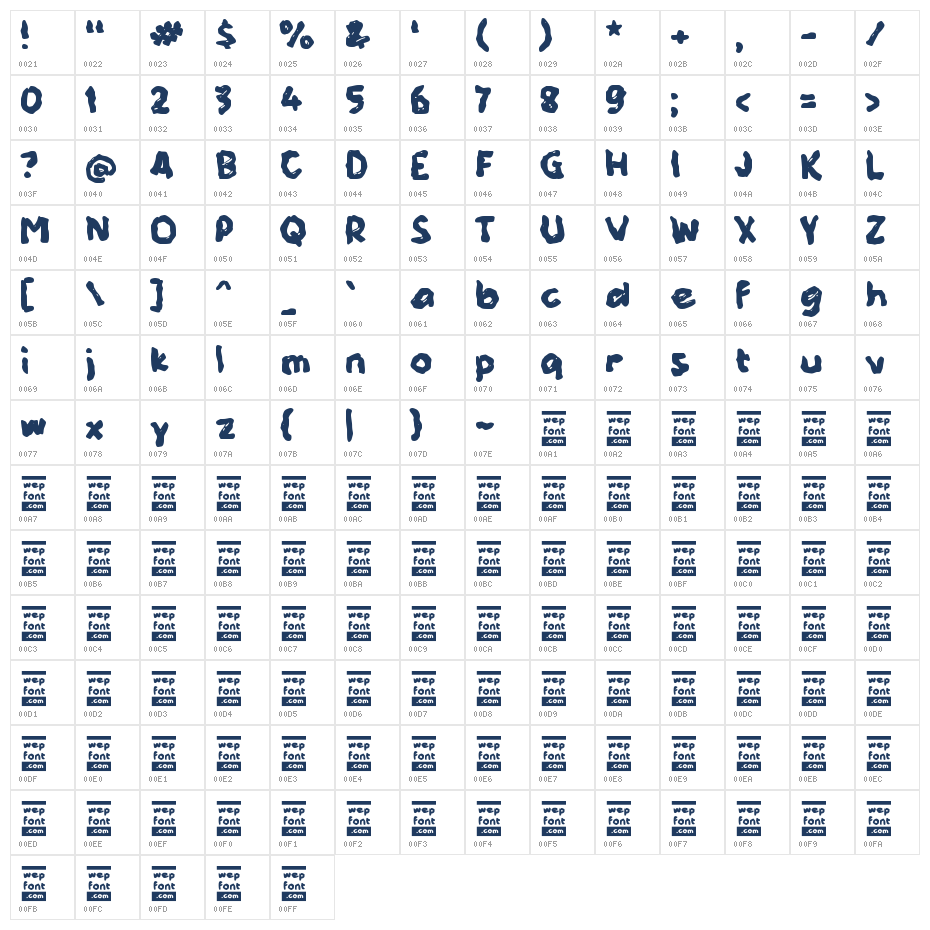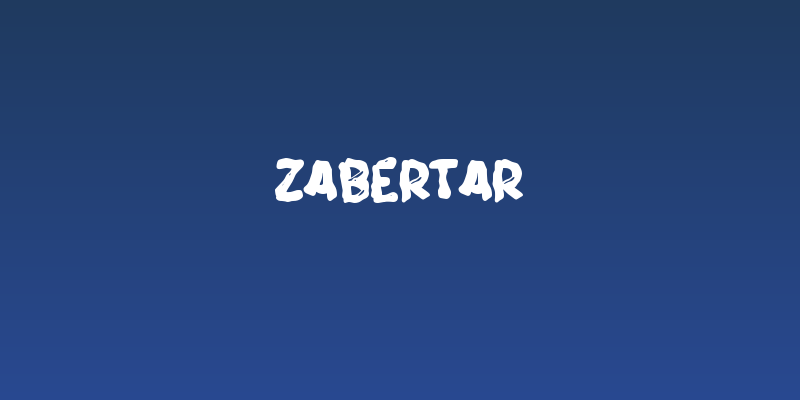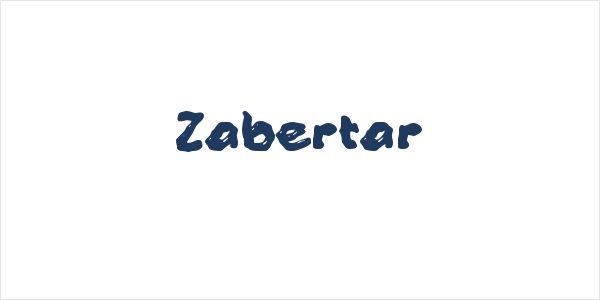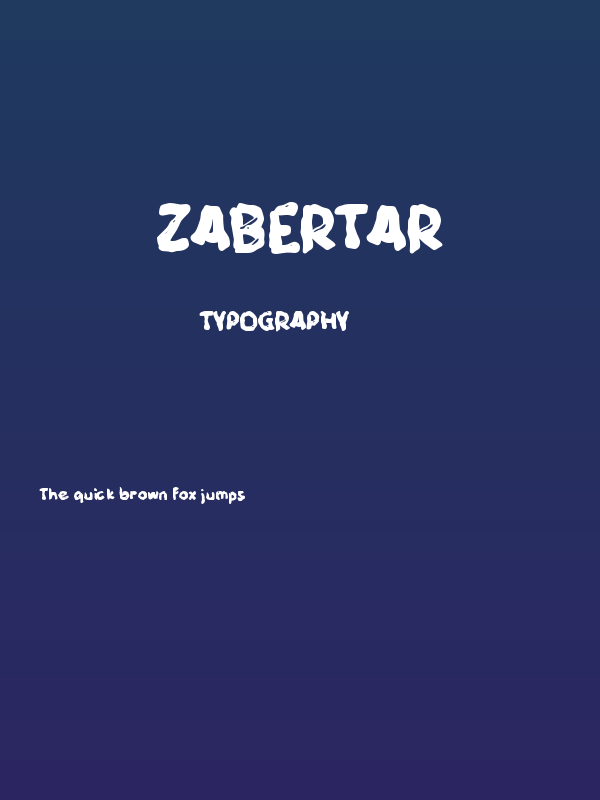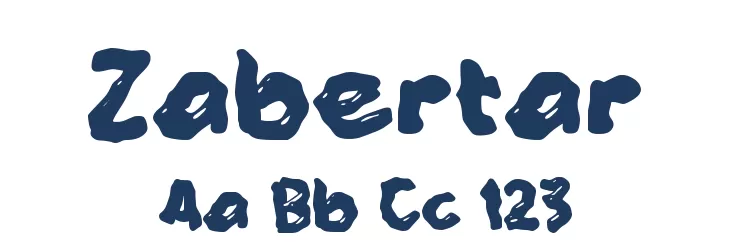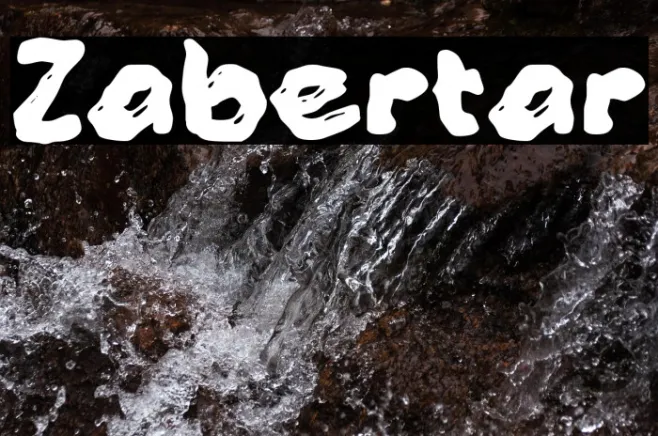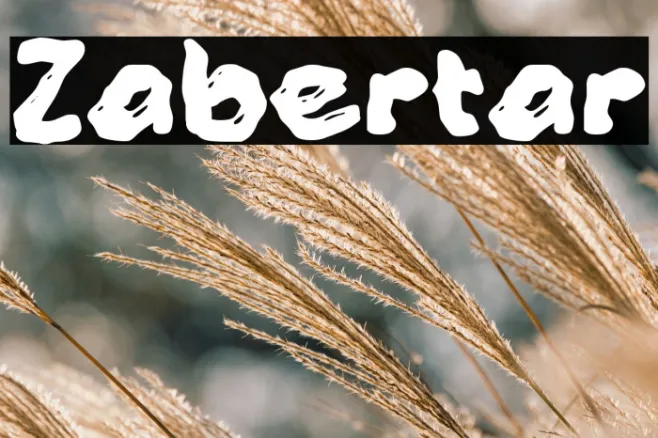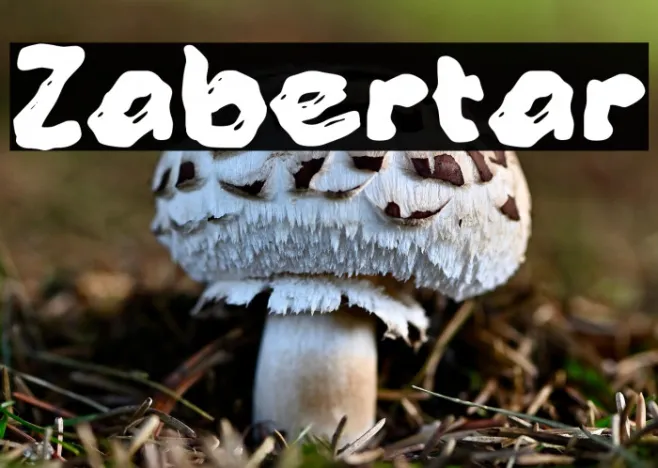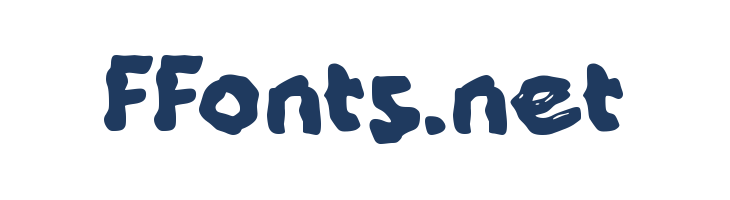
Zabertar Font
Zabertar Description
A bold, textured, brushstroke style font with a casual and playful appearance.
| Overall Style | Casual, Artistic, Handcrafted |
| Use Case | Headlines, Posters, Logos, Creative branding |